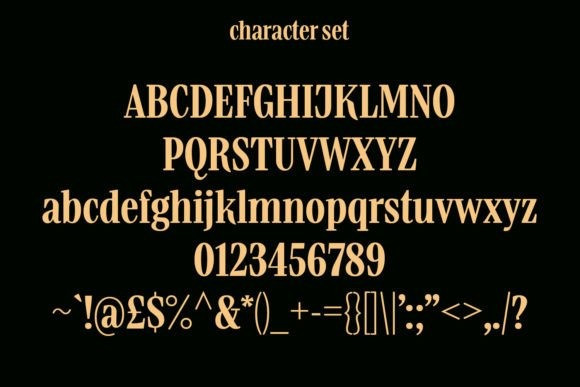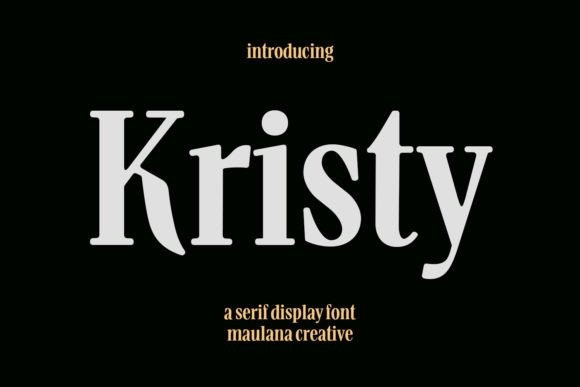
Kristy Font
Kristy Font is a modern and cool serif font. Fall in love with it and bring your projects to the highest levels! Perfectly fit for branding, logo, wedding things, greeting cards, fashion, lookbook, marketing promotion, anytime you want to look fancy elegant but still casual.